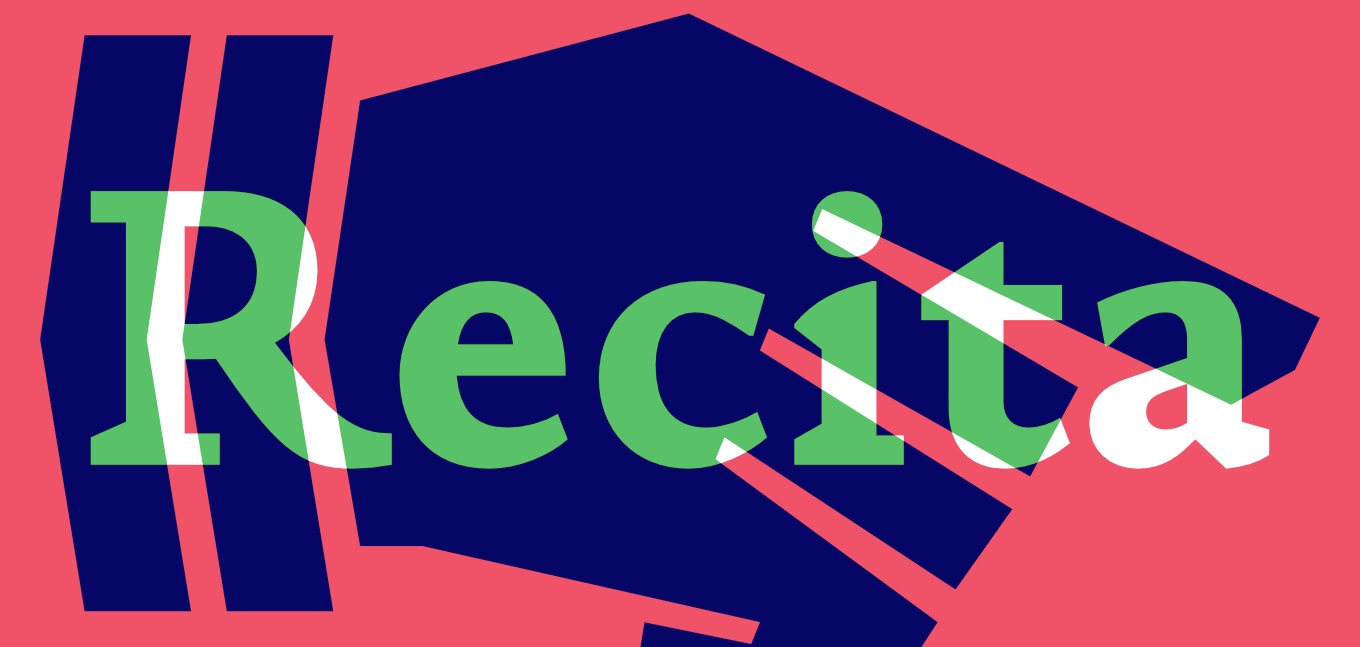
Recita Font
Recita Font is perfect for literary publications, poetry collections, academic journals, cultural magazines, theatrical programs, and sophisticated editorial layouts. Its expressive character makes it ideal for publishing houses, universities, literary festivals, classical music venues, art galleries, and any project requiring intellectual elegance with scholarly refinement and creative artistic sophistication.
This font is exciting because it captures the essence of literary tradition and academic excellence while offering contemporary functionality for modern publishing needs. The thoughtfully crafted letterforms evoke the dignity of classical typography and scholarly discourse, creating an immediate sense of credibility and intellectual authority that resonates with educated audiences seeking quality content and meaningful communication.
The Recita Font family typically includes Regular, Italic, Bold, and Display variations with extensive character sets, scholarly ligatures, and academic symbols that enhance its literary personality. This comprehensive collection enables designers to create sophisticated typographic systems that maintain intellectual gravitas while providing flexibility for various educational and cultural applications requiring scholarly presentation standards.
Whether you're designing academic textbooks, creating promotional materials for cultural institutions, or developing brand identity for educational organizations, Recita Font Free Download delivers the scholarly elegance and literary sophistication that commands respect in intellectual circles. Its exceptional readability in extended text settings makes it perfect for books, research papers, and long-form content while maintaining the refined aesthetic that communicates knowledge, wisdom, and cultural appreciation across all educational and literary applications.